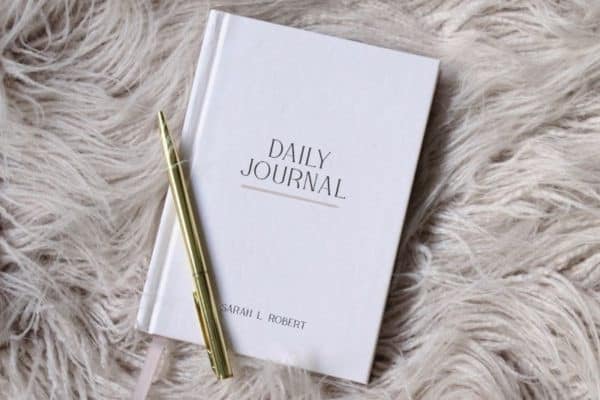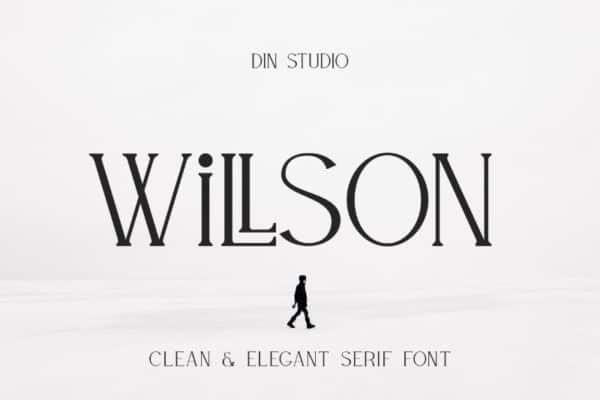
Hello, Introducing Willson Serif Font, a contrast, yet beautiful display serif typeface. Made from font designer named Din Studio. Willson designed with a modern and clean style. with this font will add chemistry to your designs. branding social media and collaborating with digital products would be a perfect fit. Willson Serif Font is suitable for branding, logo, printing and many other designs.